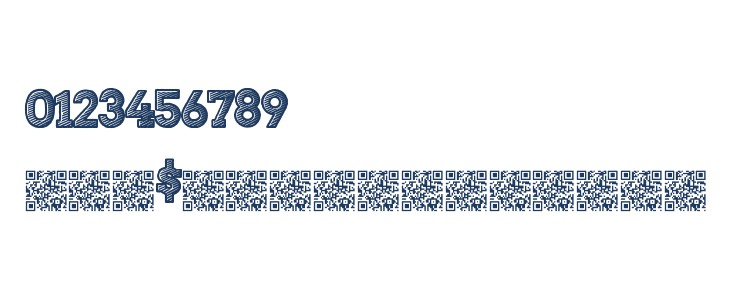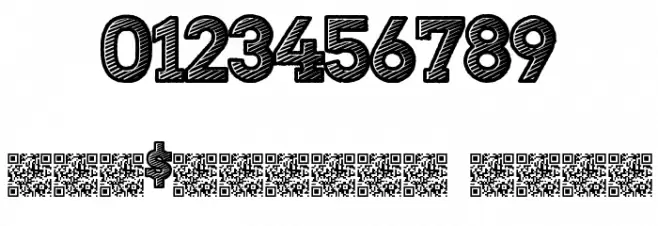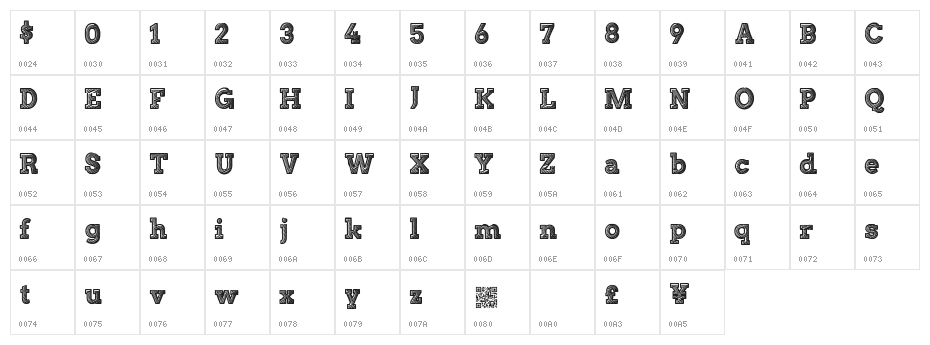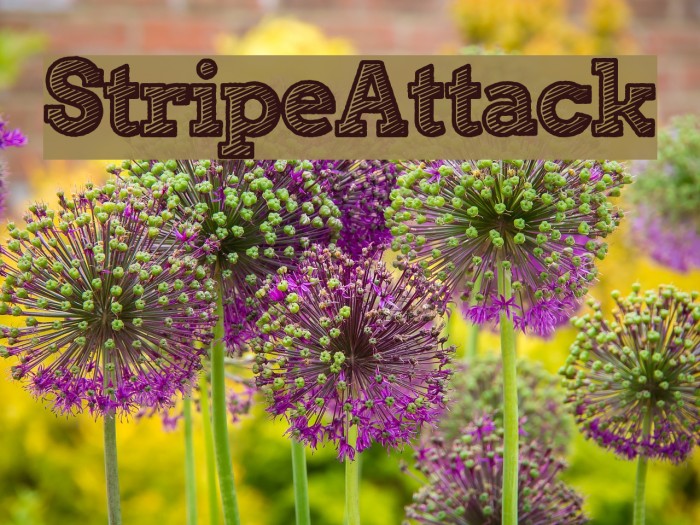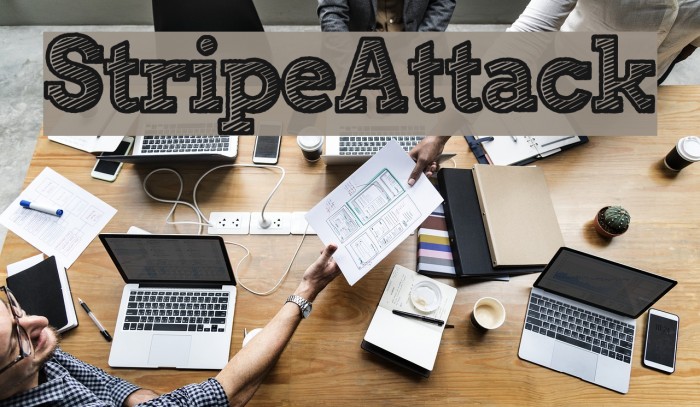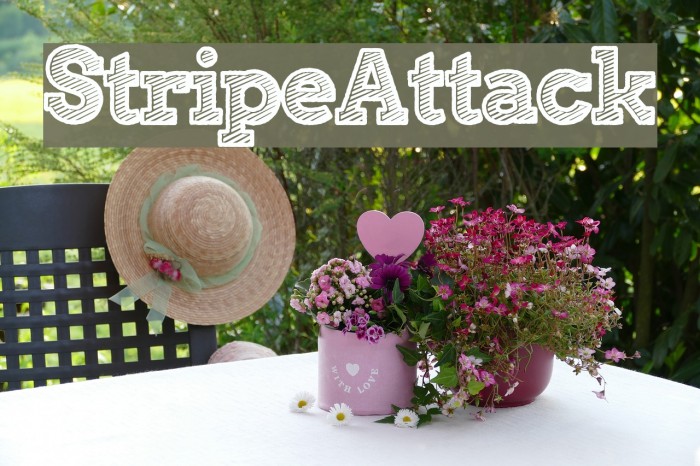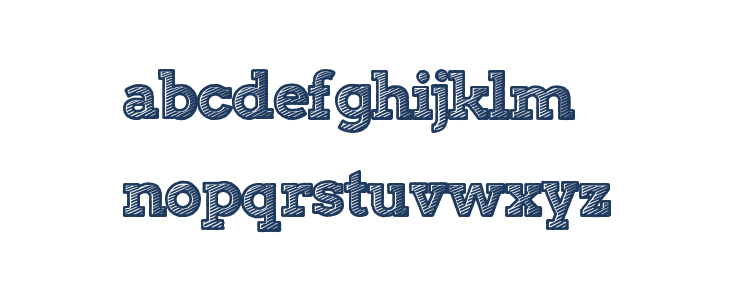
StripeAttack Font
StripeAttack Description
This font features a bold, decorative style with a unique striped pattern filling each character. The uppercase and lowercase letters maintain a consistent design, with thick strokes and a playful, hand-drawn aesthetic. The numbers and special characters are equally bold and maintain the striped pattern, adding to the cohesive look of the font. The overall appearance is eye-catching and dynamic, making it suitable for projects that require a standout typeface. The font's design suggests a sense of fun and creativity, ideal for informal or artistic applications.
| Proposed Projects | Ideal for posters, logos, headlines, and any project requiring a bold, artistic touch. |